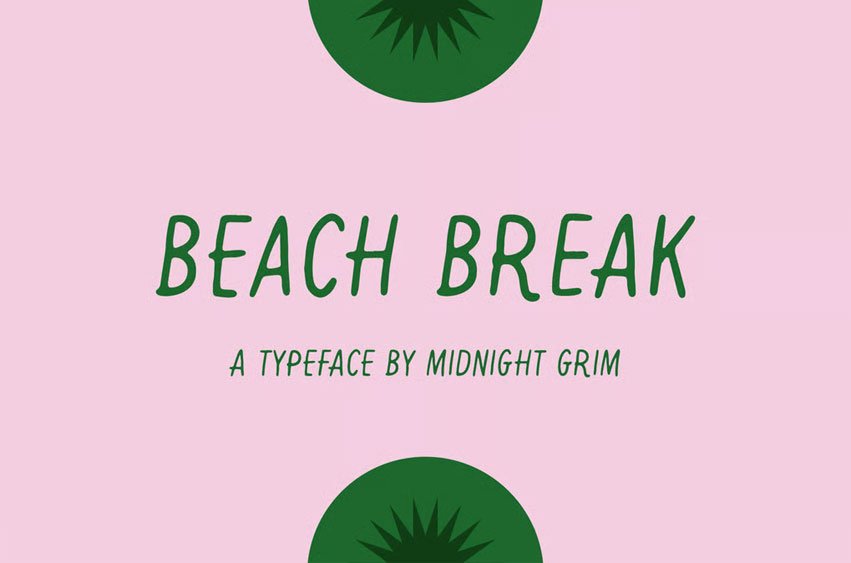
Beach Break Font Dip your toes in the Sea with Beach Break, a surf inspired, handmade typeface whose subtle style brings out the dreamy casual mood of a day by the sea. Includes multi-language characters, numbers, and punctuation!